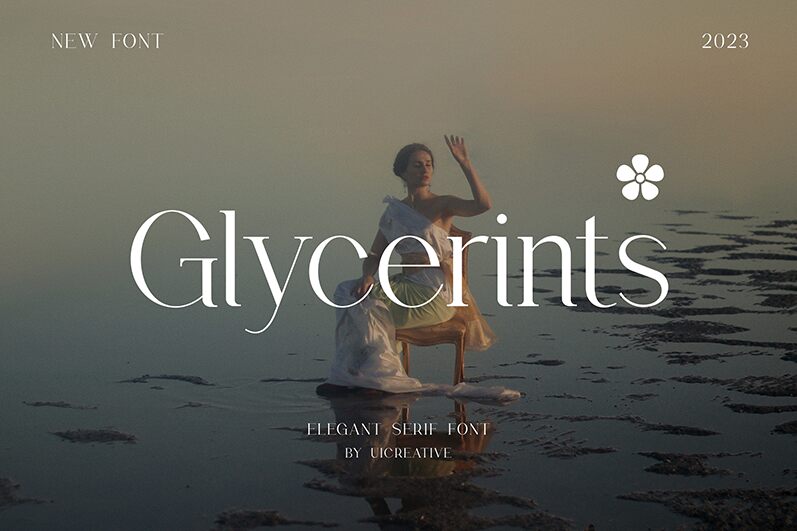
Glycerints
Glycerints, crafted by UI Creative, is a serif font that exudes elegance and sophistication. Its refined curves and delicate strokes create an aura of timeless grace, making it perfect for high-end branding and editorial design. The distinctive serifs add a classic touch, while the overall structure maintains modern readability.
Ideal for luxury labels, book covers, or any project seeking an air of distinction, Glycerints seamlessly balances tradition with contemporary flair. Whether for print or digital media, this font's striking presence ensures your message stands out with poise and clarity.